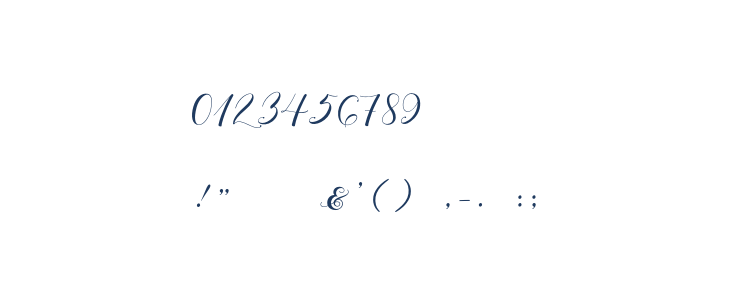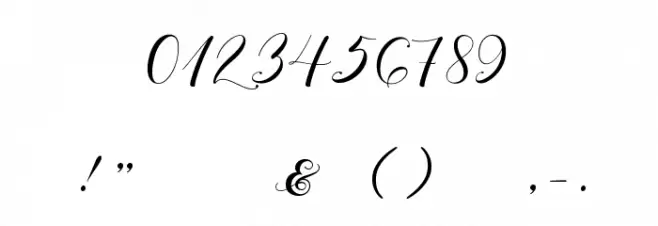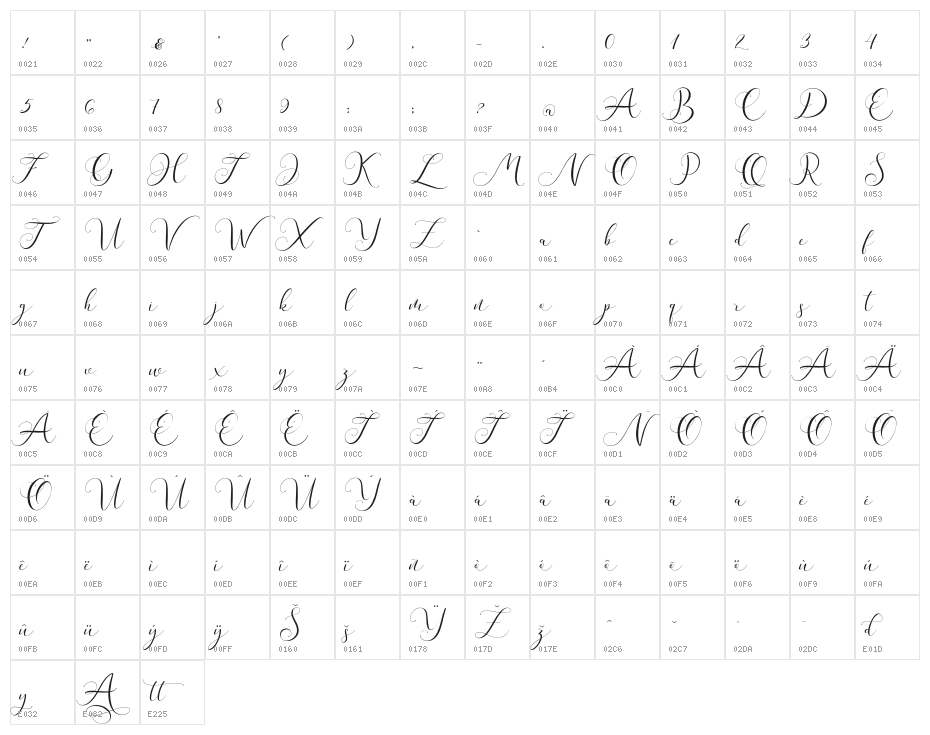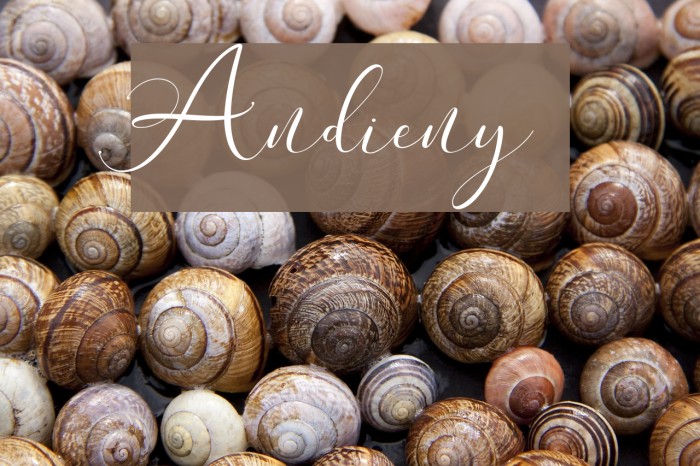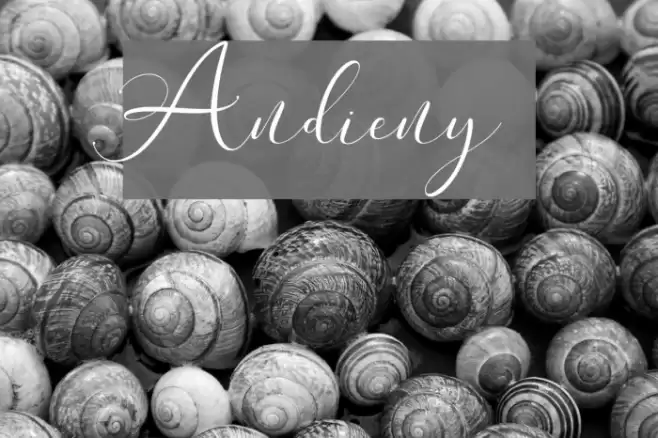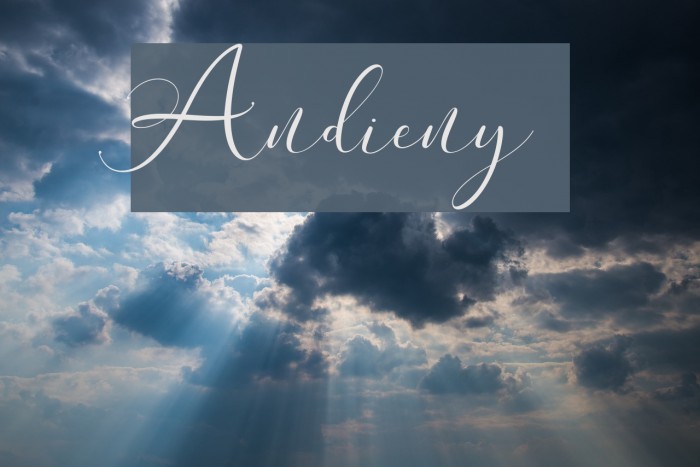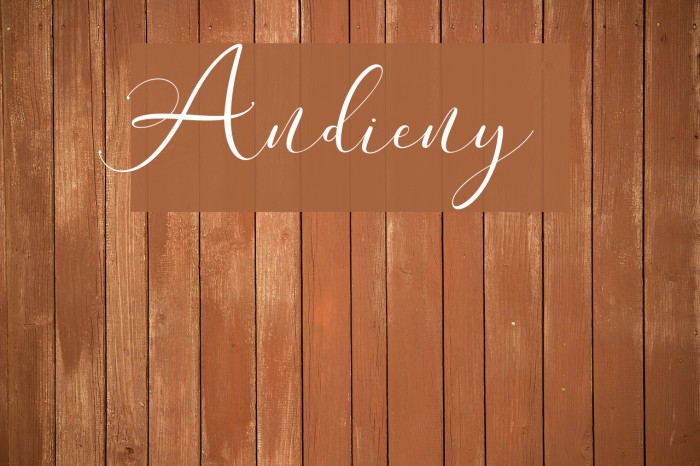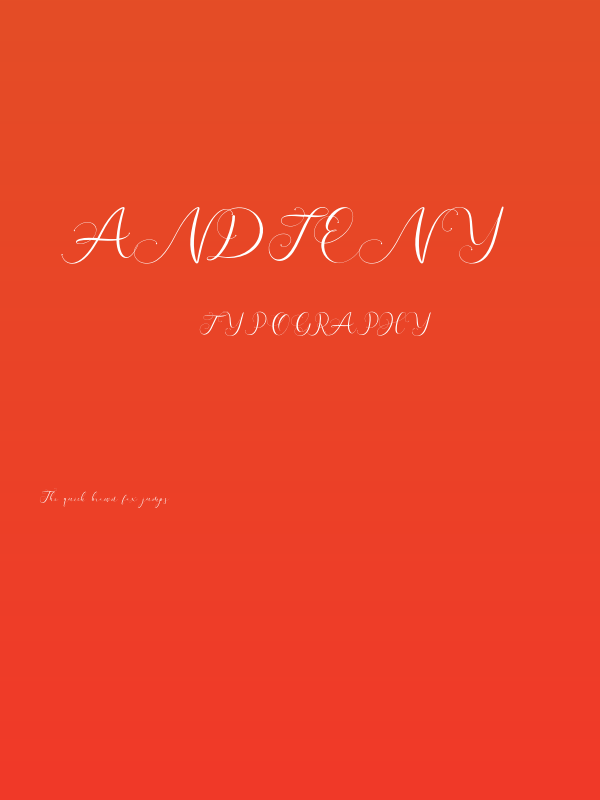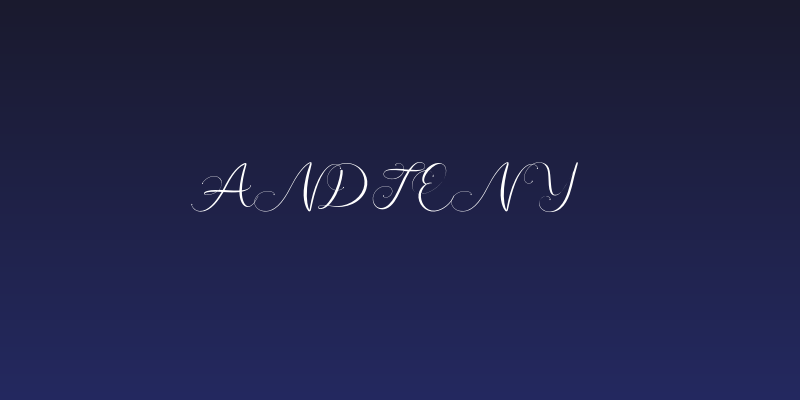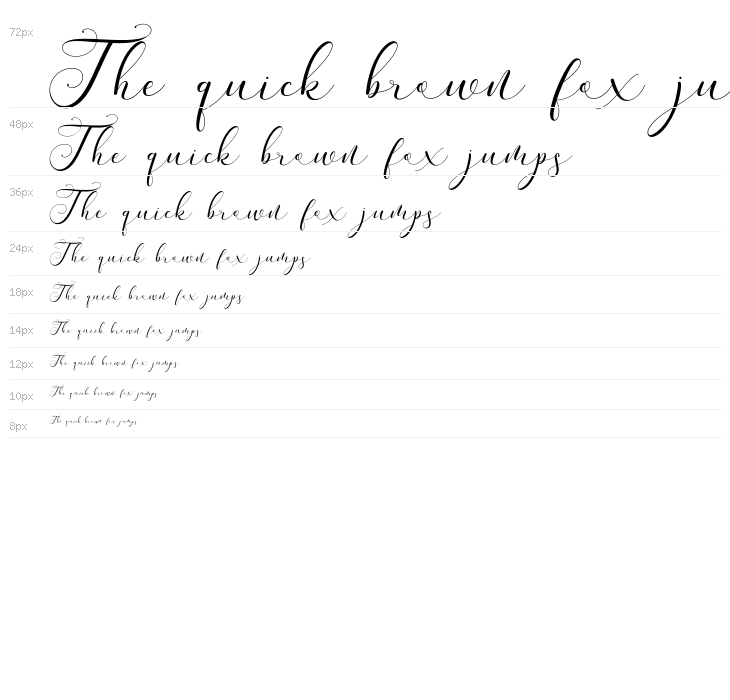
Andieny Font
Andieny Description
This elegant script font features flowing, cursive letterforms with intricate swashes and flourishes. The uppercase letters are particularly ornate, with extended loops and decorative elements that add a touch of sophistication. The lowercase letters maintain a graceful continuity, making the font suitable for elegant and formal designs. The numerals are consistent with the overall style, featuring slight curves and a refined appearance. Special characters are thoughtfully designed to complement the script style, enhancing the font's versatility.
| Proposed Projects | Ideal for wedding invitations, elegant branding, greeting cards, and luxury product packaging. |